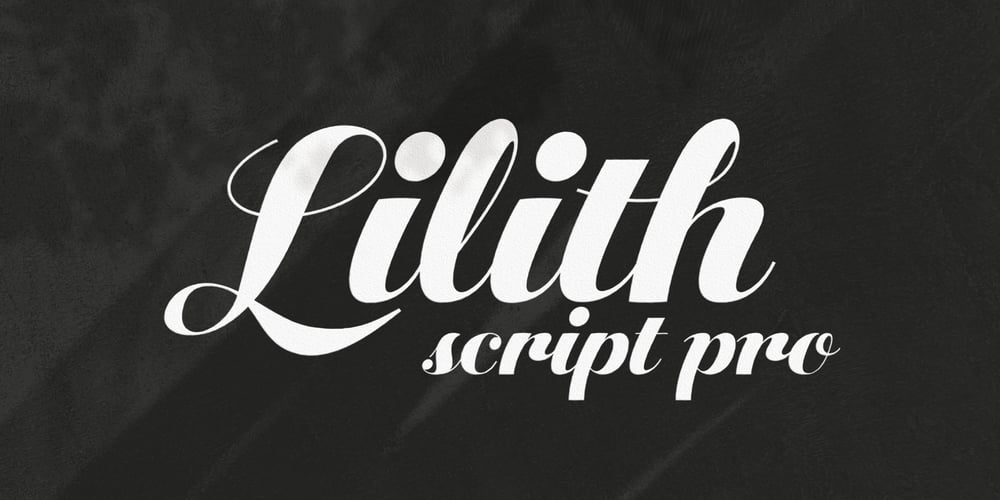
Lilith Script Pro Font Family was designed by Sebastian Hilgetag and published by Monday Type. Lilith Script Pro contains 4 styles and family package options. Lilith Script Pro is a family inspired from hand lettering and calligraphic typography that I’ve seen when in urban cities when I’ve travelled the world.Its strength is the magical mix of contextual alternates and 104 ligatures.Both open type enabled and completely automatic make sure that the flow of the writing will always be pleasant and perfect. The ligatures will always be substituted automatically through the “liga” feature, while the contextual alternates can be turned on and off through the “calt” feature.Lilith Script Pro is perfect for special logos and playful invitations or headlines.With its 574 glyphs per style there is really nothing you can’t do with this family.